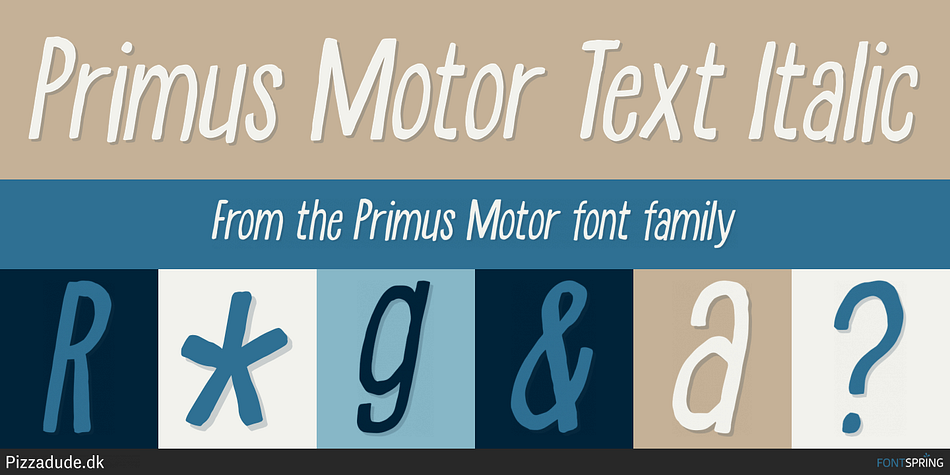
Primus Motor Text Italic
Primus Motor is a hand drawn and hand display font family. This typeface has four styles and was published by Bogstav.
Primus Motor is all about being the one who gets the job done!